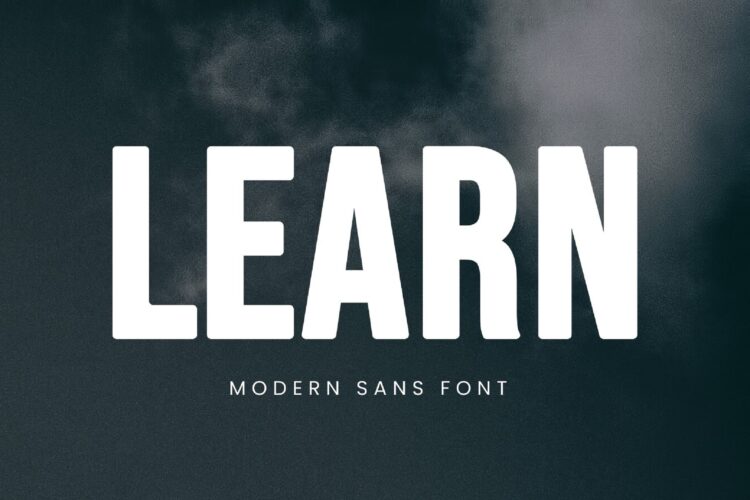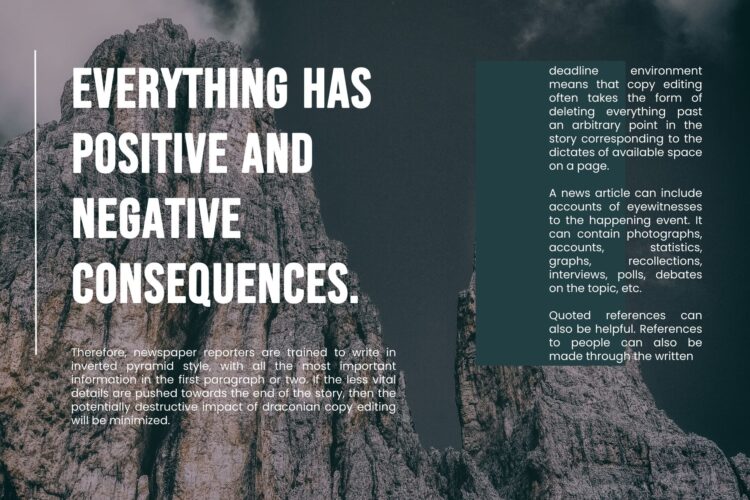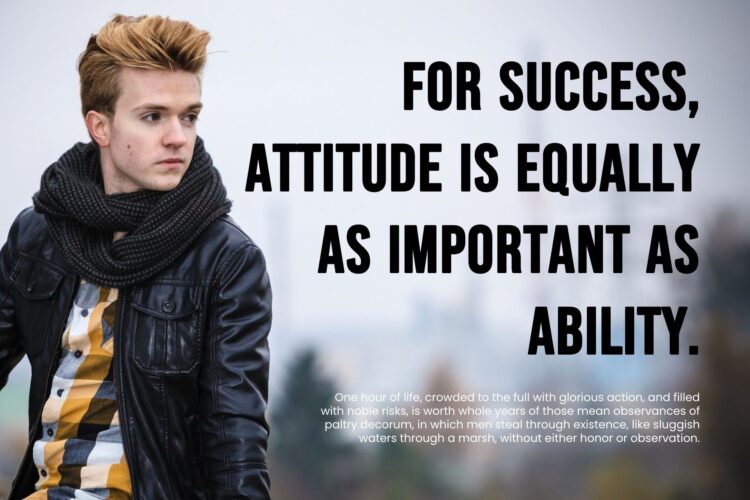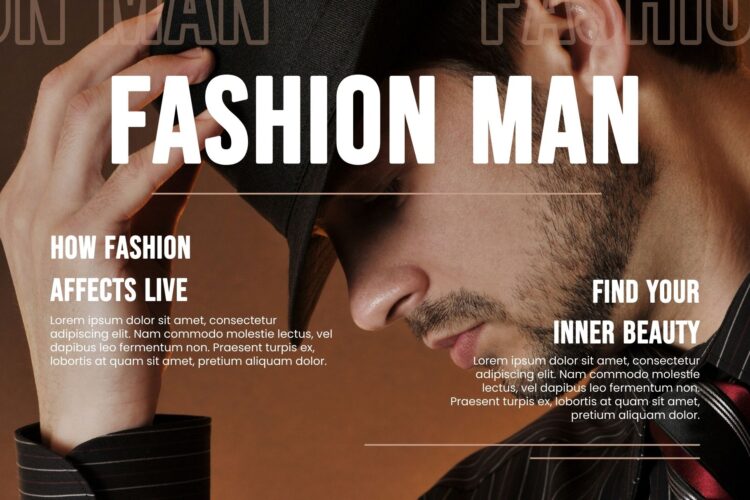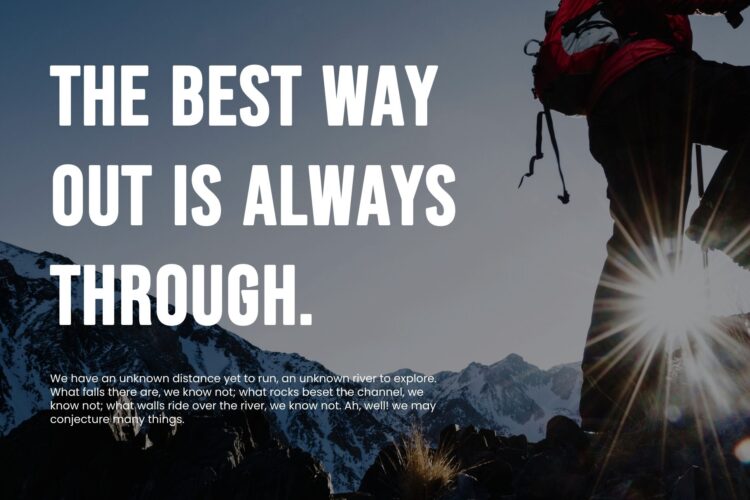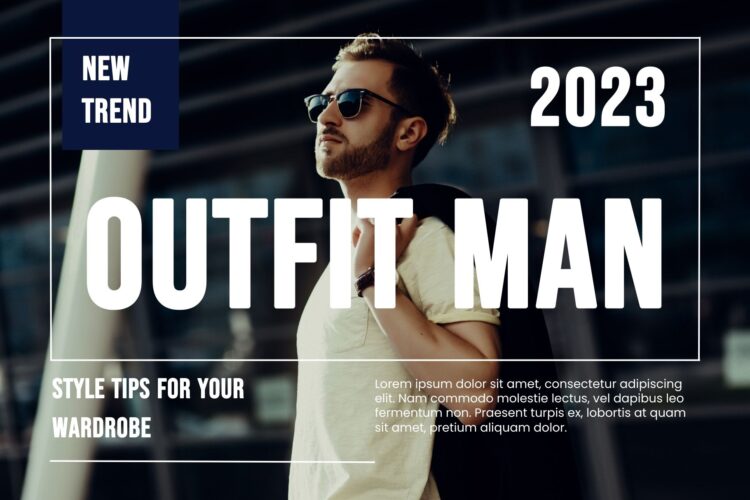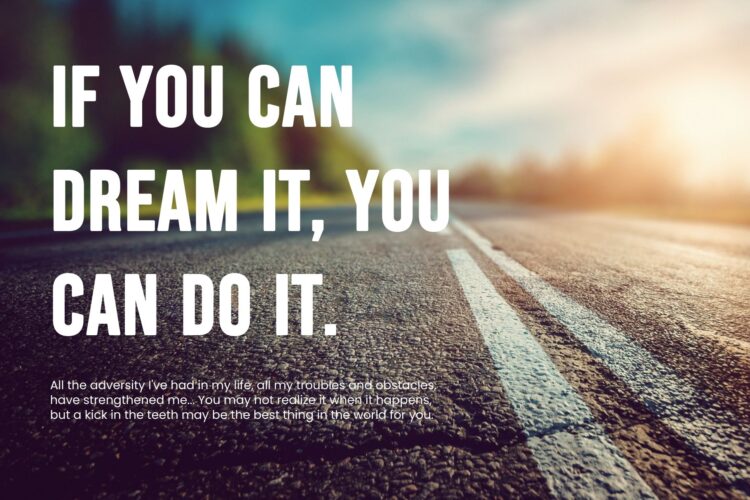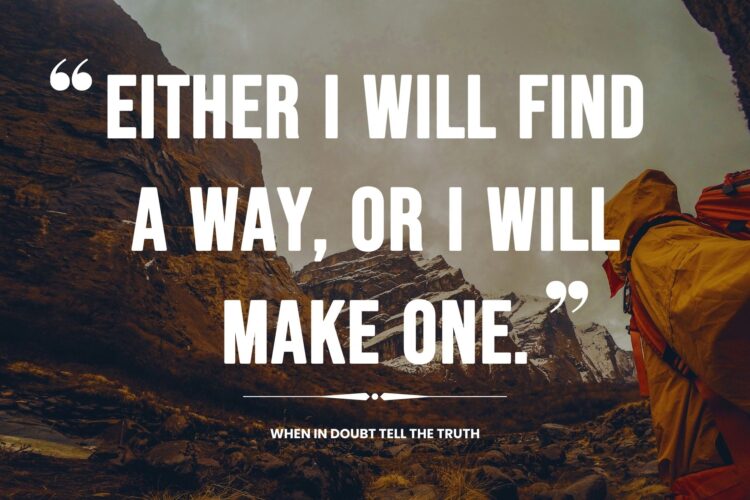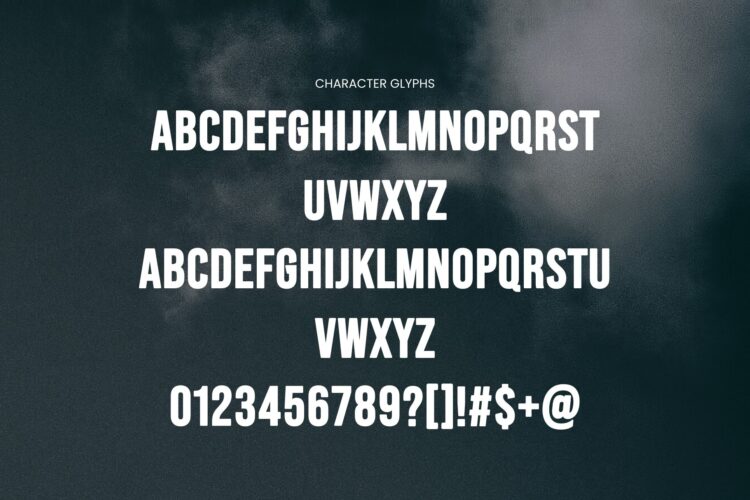
Introducing our new Learn, modern sans serif font with elegant style this is perfect for branding, logos, invitation, magazines, product packaging and more.
Learn – Modern Sans Serif